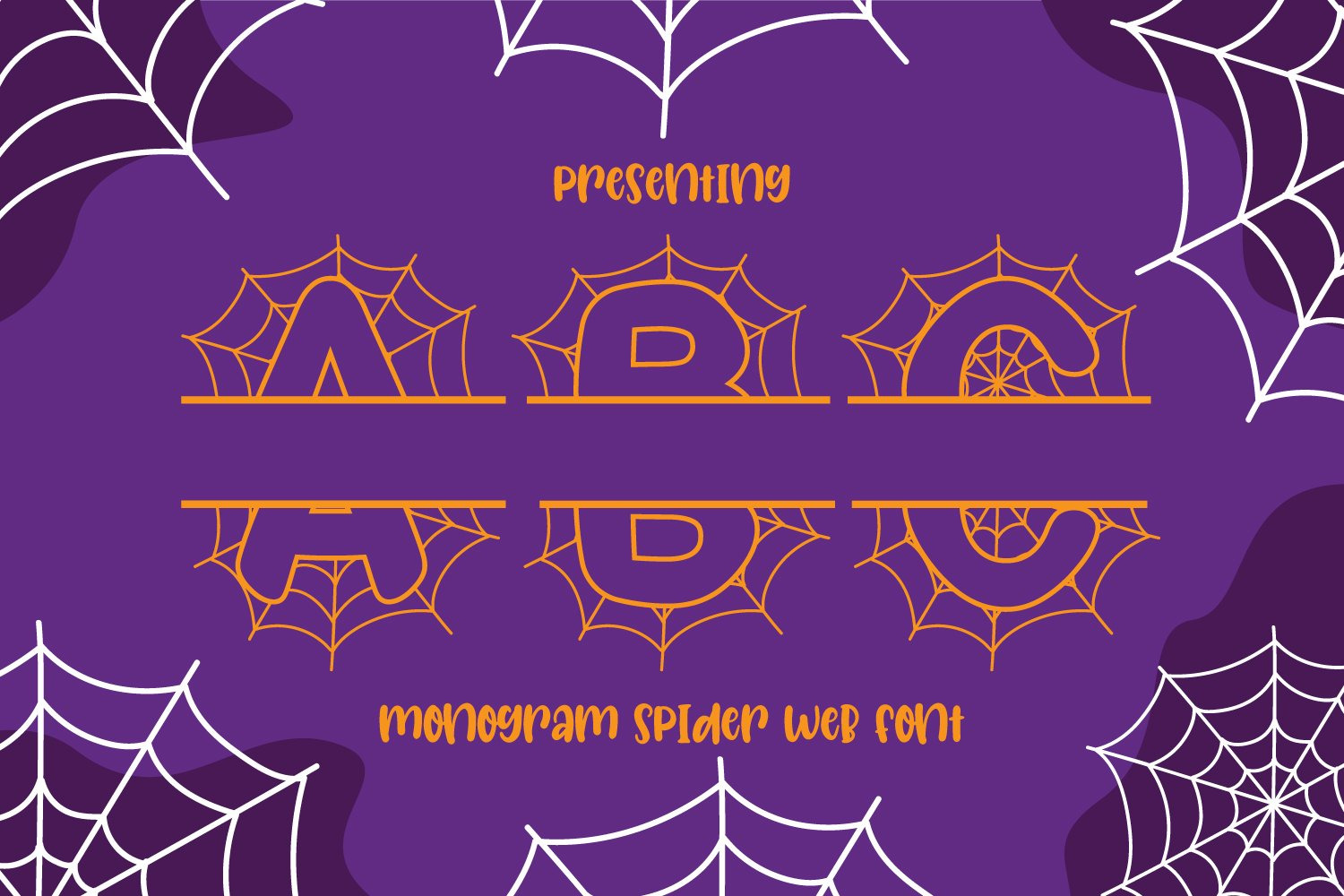
Spider Web Halloween Monogram Font
Presenting Cute font for you. Spider Web - Monogram Font for Halloween can be used in tons of projects specially for child and newborn projects. You can use it for craft purpose and this will looks great on shirts, printing material and other stuff.
- UPPER Case only Letters A to Z and 0 to 9
- Super Cute and Creative